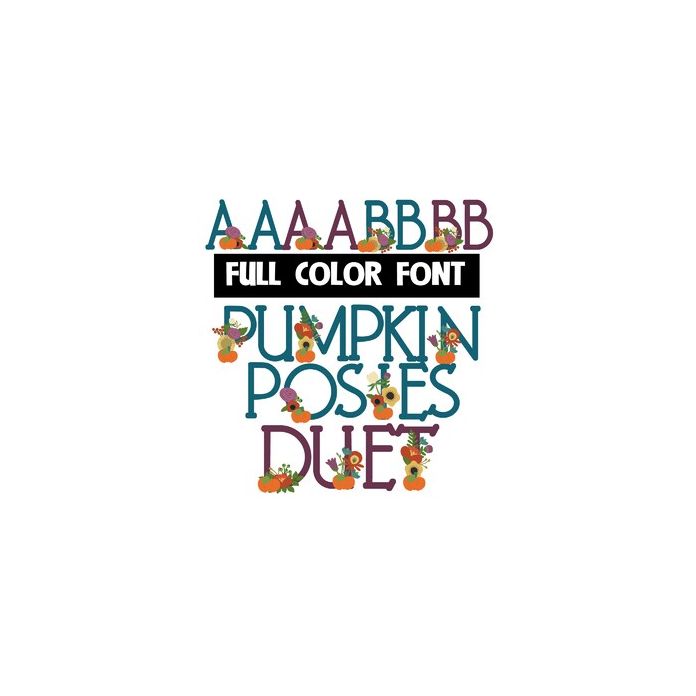
This full-color font is done in an autumn color palette and features florals and pumpkins on the uppercase. There is a second version of each upper and lowercase letter in a different color available through Silhouette's glyph map.